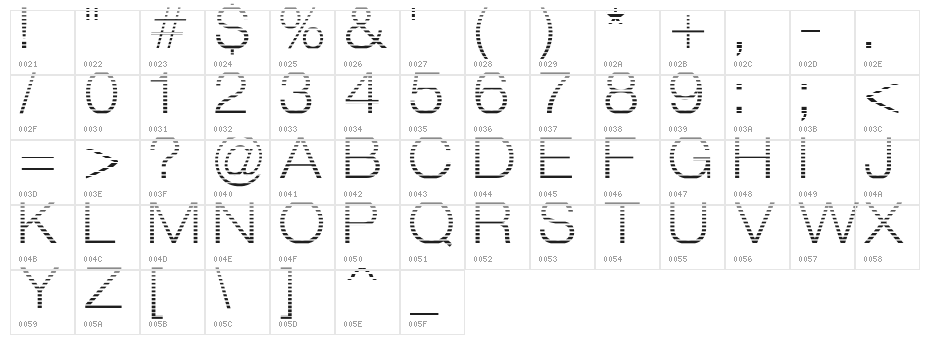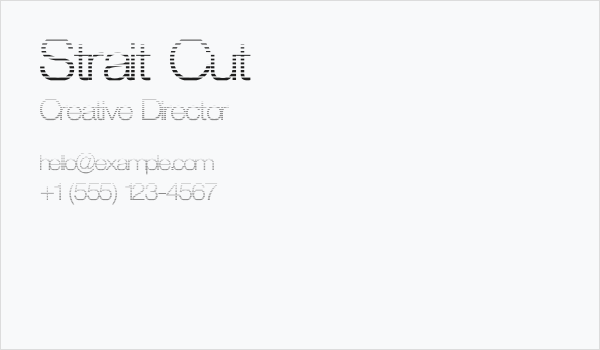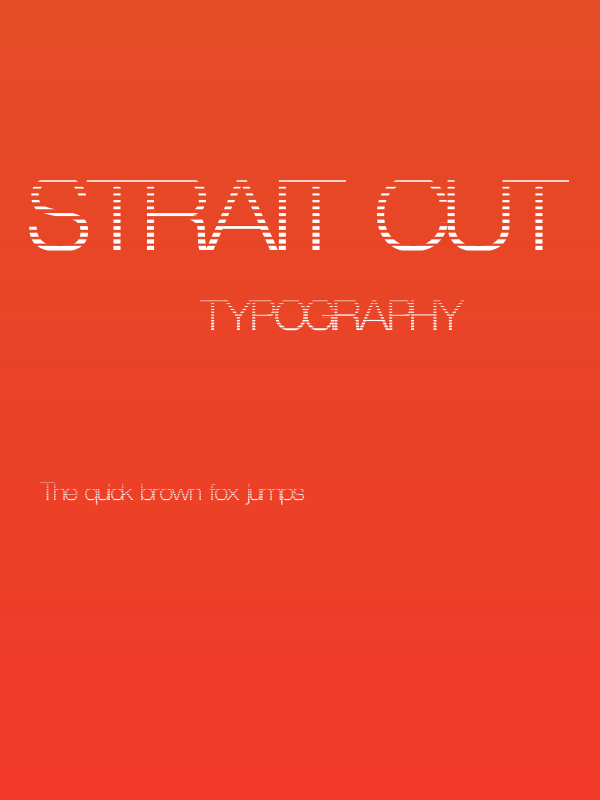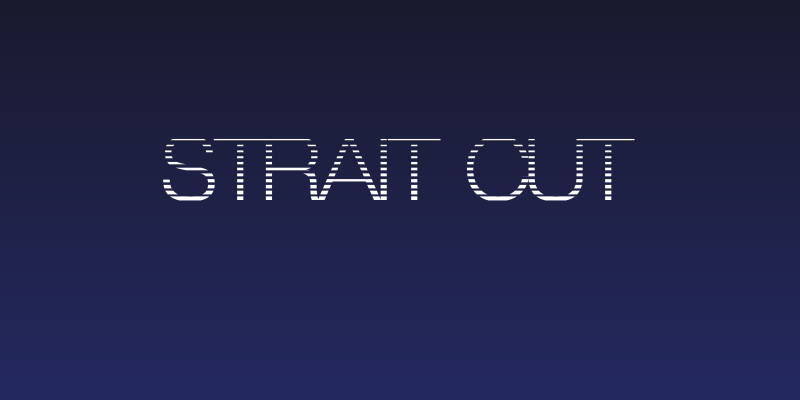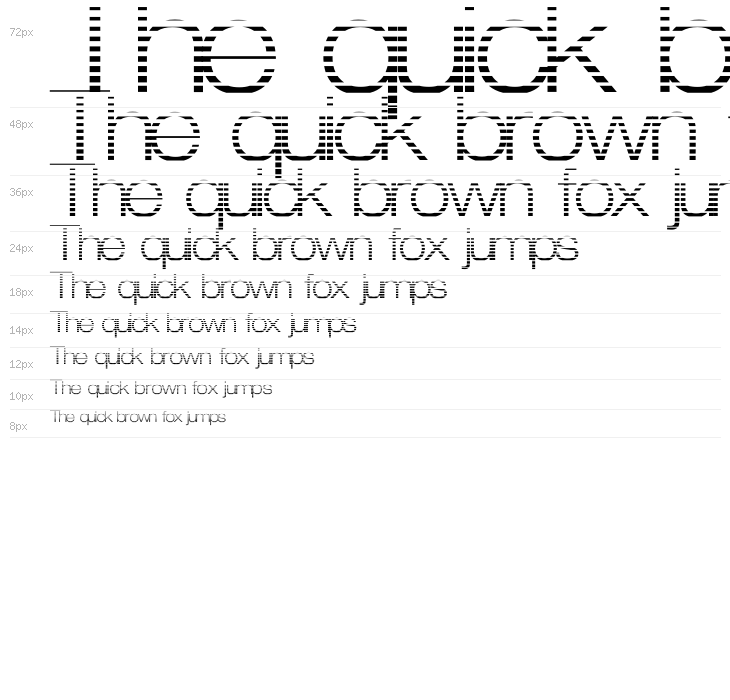
Strait Cut Font
Strait Cut Description
This font features a unique, modern design characterized by its horizontal line pattern that creates a visually striking effect. The letters are constructed with a series of parallel lines, giving it a digital, futuristic appearance. The uppercase and lowercase letters maintain a consistent style, with clean, geometric shapes. Numbers and special characters follow the same design principle, ensuring uniformity across all glyphs. This font's distinct style makes it stand out, while still maintaining readability.